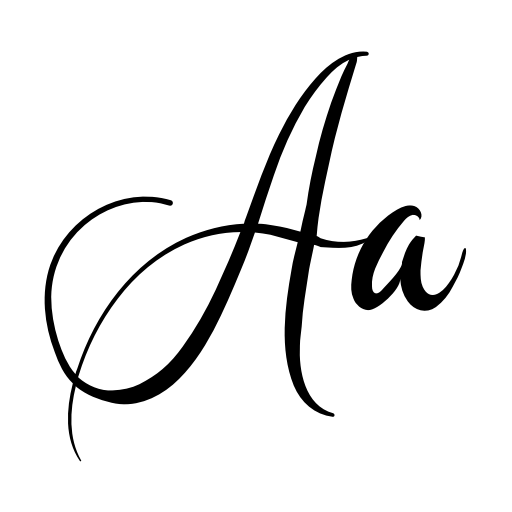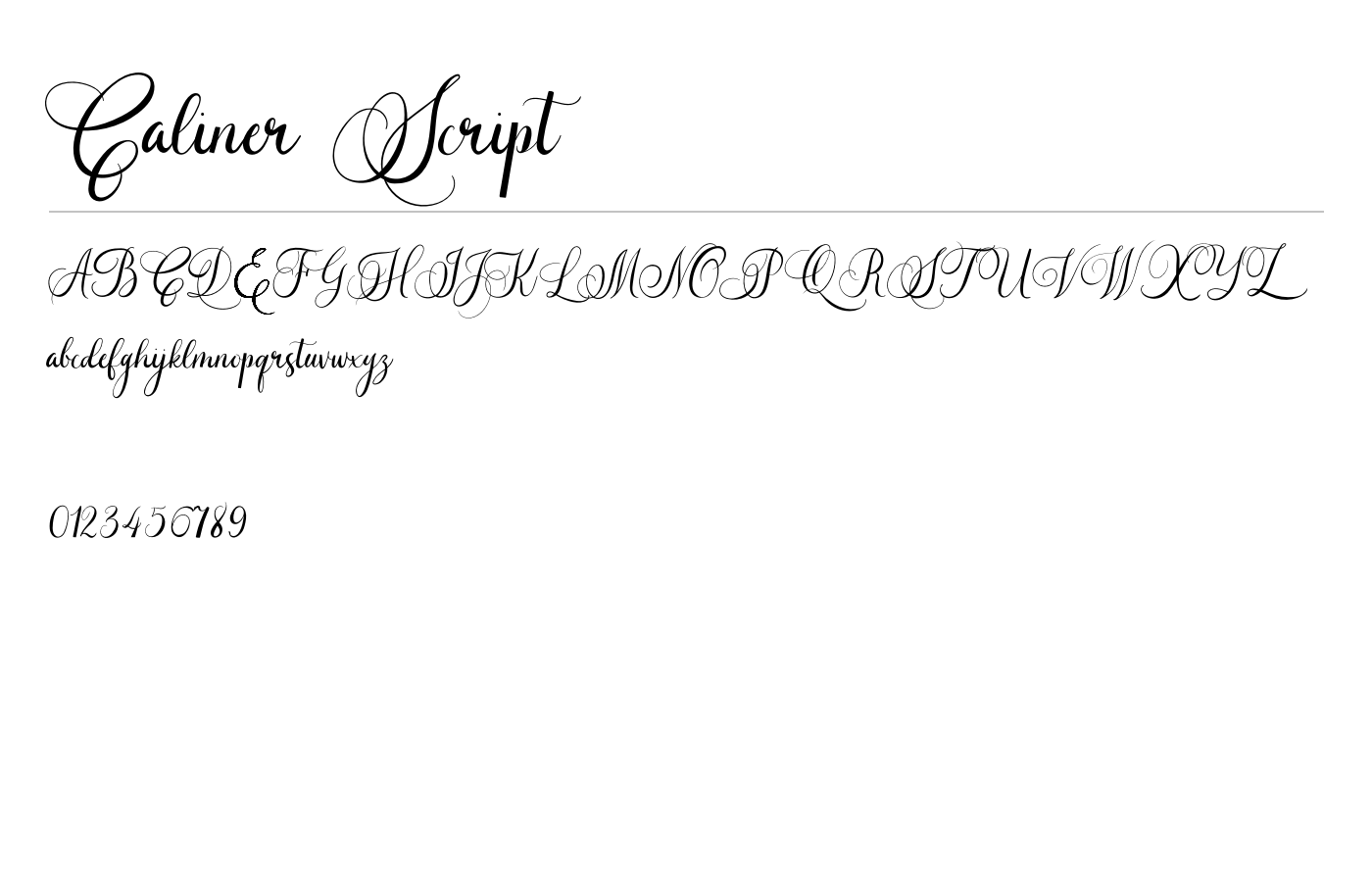
Caliner Script is an elegant and flowing script font with delicate, high-contrast strokes and intricate swashes that give it a refined, ornamental feel. Its graceful uppercase letters feature elaborate loops while the lowercase remains slender and readable, making it perfect for luxury branding, invitations, and sophisticated editorial designs. This font shines in contexts where a stylish, romantic, and classic aesthetic is desired, especially in headlines and decorative text.
| Font family | Caliner Script Font |
| Designer | Risca Anitawati |